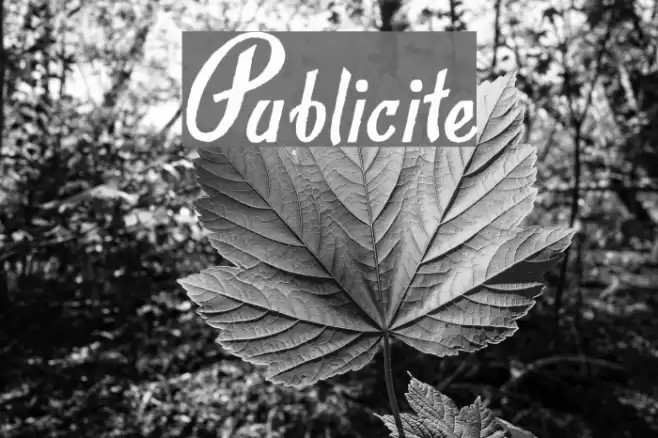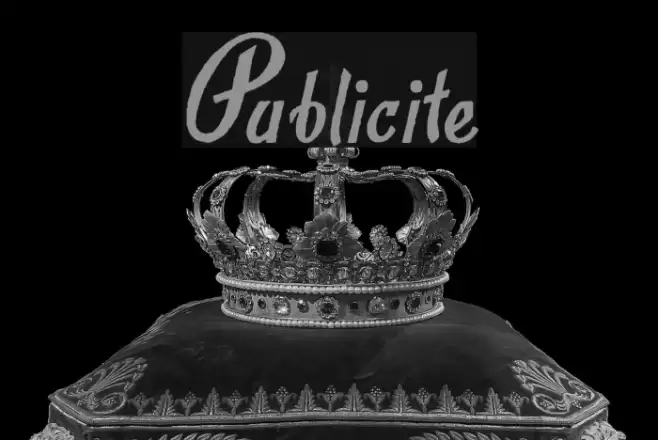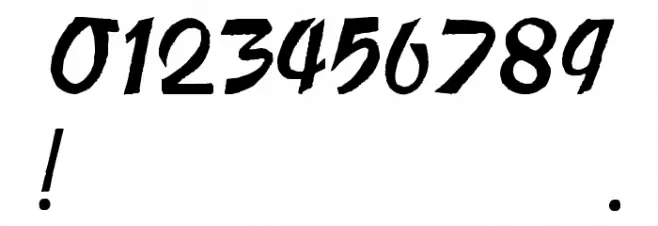
Publicite Font
Publicite Description
This font features a dynamic and expressive script style, characterized by its fluid and cursive letterforms. The uppercase letters exhibit a bold and sweeping motion, while the lowercase letters maintain a consistent flow with elegant curves. The numerals are distinct and maintain the same energetic style, making them easily recognizable. Special characters are designed with the same flair, adding to the overall cohesive look. This font's unique style is perfect for creating a sense of movement and personality in any design.
A dynamic and expressive script font with fluid, cursive letterforms from Uncategorized fonts.
- Proposed Projects: Ideal for branding, invitations, greeting cards, and any project requiring a personal touch.
- Use Case: Logos, Headlines, Invitations